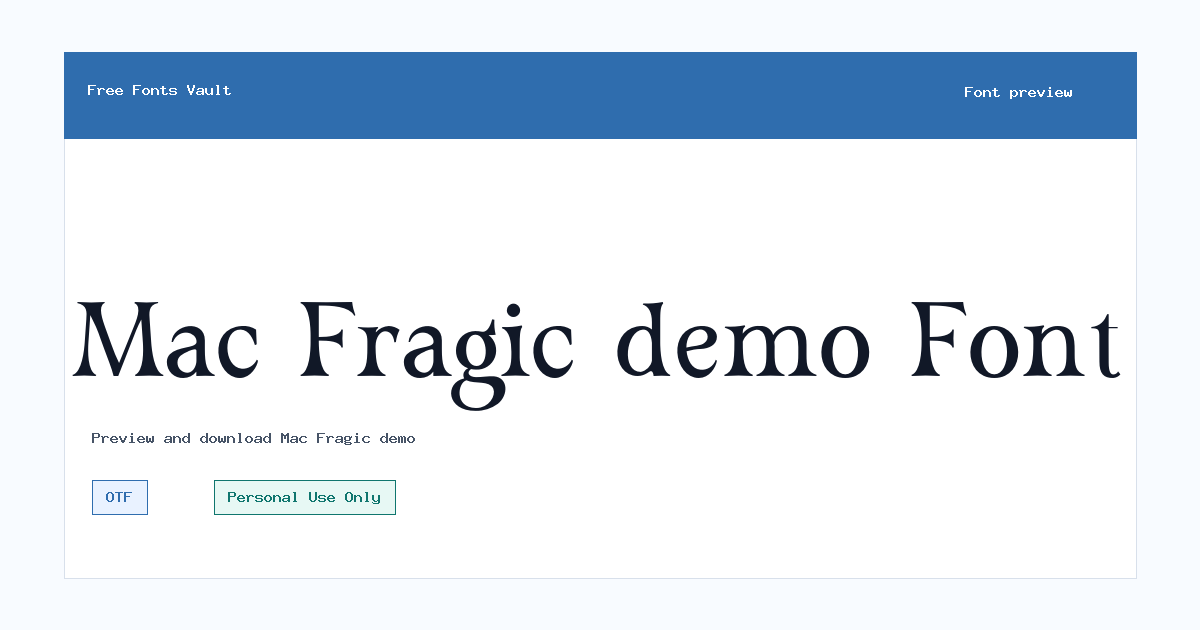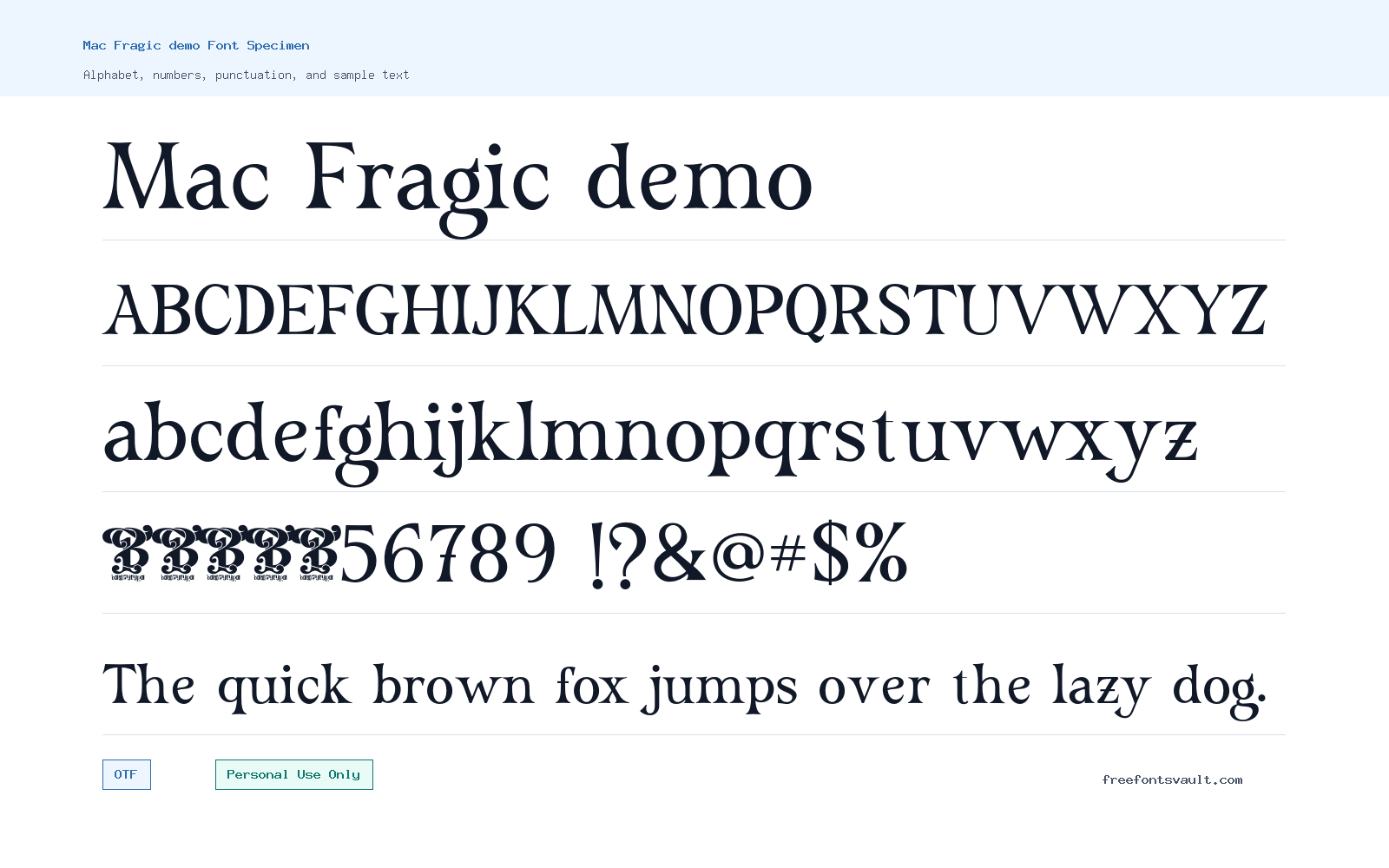
Mac Fragic demo
- Designer Dian Haniff
- Foundry Bearytype Studio
Mac Fragic demo font.
Mac Fragic demo is a serif display font with a polished, editorial feel. It is best approached as a trial or personal-use font for testing headlines, visual layouts, and short pieces of styled text before using it in a finished project.
About Mac Fragic demo
Use the preview area to test the exact words you plan to design with. Serif display fonts can look elegant in names, titles, quotes, packaging-style mockups, invitations, social graphics, and logo concept sketches, but they should still be checked at the size you need. Try uppercase, lowercase, numbers, punctuation, and any accented characters your project requires. If the letters feel too detailed at small sizes, keep Mac Fragic demo for headings and pair it with a simpler sans serif or readable text serif for paragraphs, captions, and navigation.
- Serif display character suited to short, prominent text rather than long reading passages.
- Useful for testing personal projects, title layouts, and typography previews.
- Works best when spacing, size, and contrast are checked in the preview before download.
- Editorial-style headings, quote graphics, and title treatments.
- Personal invitation drafts, moodboards, and branding concept previews.
- Poster text, social media artwork, and packaging-style mockups.
- Short words or phrases where the serif details can remain clear.
The font is credited to Dian Haniff, with Bearytype Studio listed as the foundry.
What is Mac Fragic demo best used for?
It is best for short display text such as headings, quote designs, invitations, posters, and personal concept work.
Should I use it for long paragraphs?
It is better to test carefully before using it for long reading text. A simpler companion font will usually be easier for body copy.
Who designed Mac Fragic demo?
The font is credited to Dian Haniff, and Bearytype Studio is listed as the foundry.